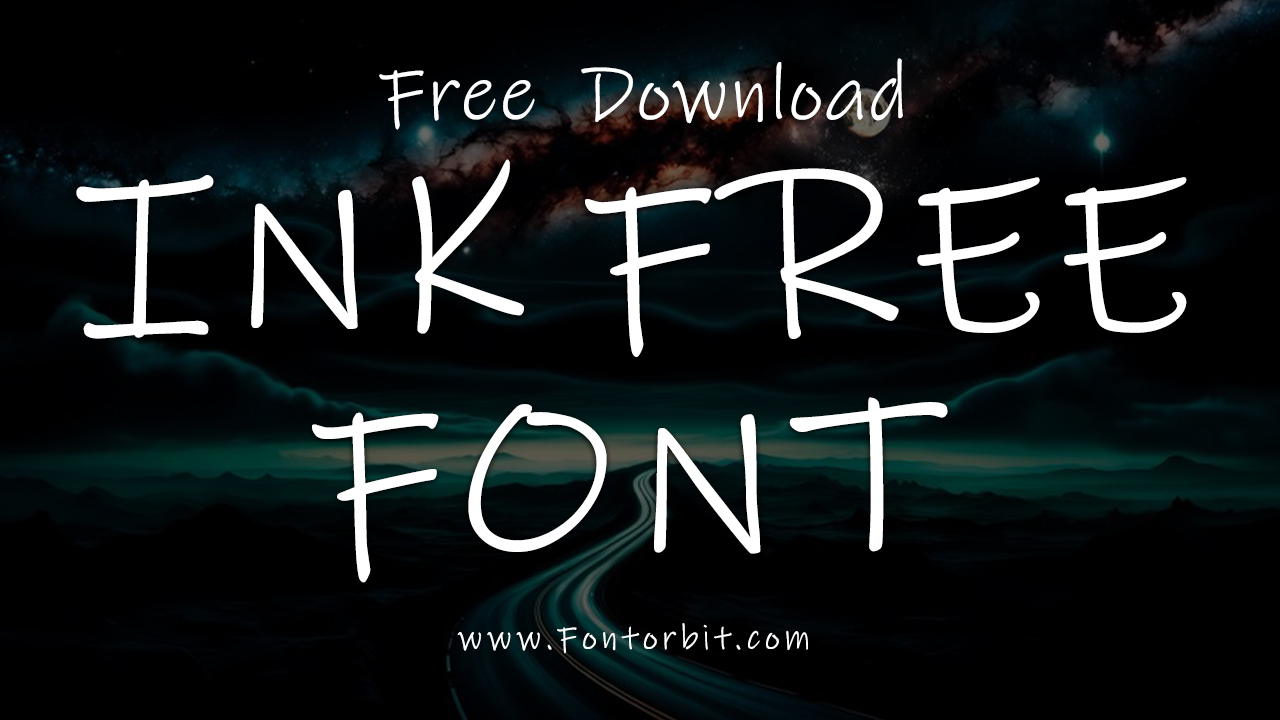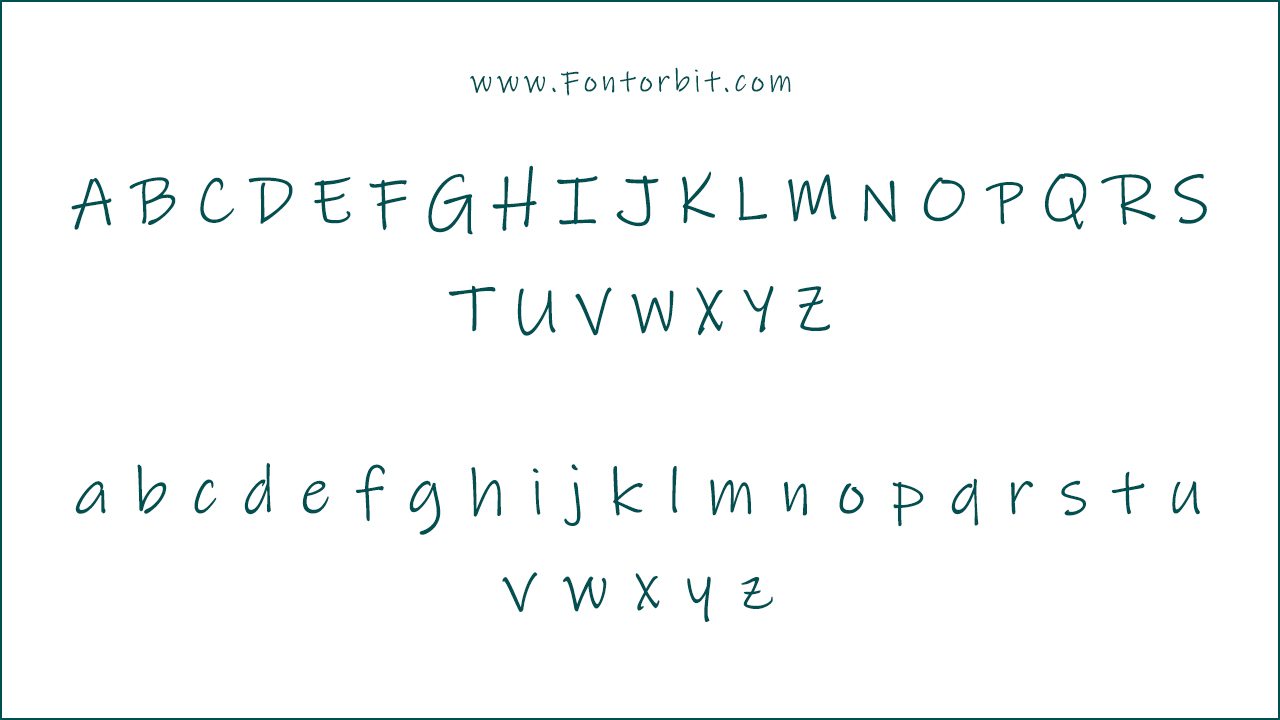
Ink Free Font is a casual, handwritten typeface designed by Steve Matteson and released in 2016. Known for its irregular alignments and unique style, Ink Free brings a relaxed, yet distinct appearance to a variety of design projects. It is available for free for both personal and commercial use.
The Ink Free Font Family Includes
Ink Free Font’s design is characterized by its slim and casual handwritten style, making it versatile for various uses. The font family includes:
- Ink Free Regular
Ink Free Font’s distinctive handwritten style makes it a great choice for informal and creative projects. Its versatile look is ideal for a range of applications where a personal touch is desired.
- Whiteboards
- Artwork
- Greeting Cards
- Casual Branding
- Informal Documents
- Presentations
- Creative Projects
- Note-taking Applications (e.g., OneNote)
Ink Free Font is often seen in contexts that benefit from a handwritten, casual appearance. Its unique design adds a personal and approachable feel to various forms of communication and creative expressions.
Ink Free Font embodies a casual, handwritten style that adds a personal touch to various designs. While it may not be suited for formal documents, it excels in applications where a relaxed, approachable look is desired. Pair Ink Free Font with modern, clean fonts or design elements to create a compelling contrast and enhance its visual appeal.